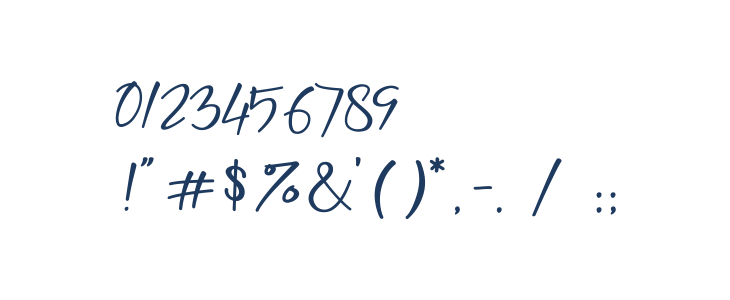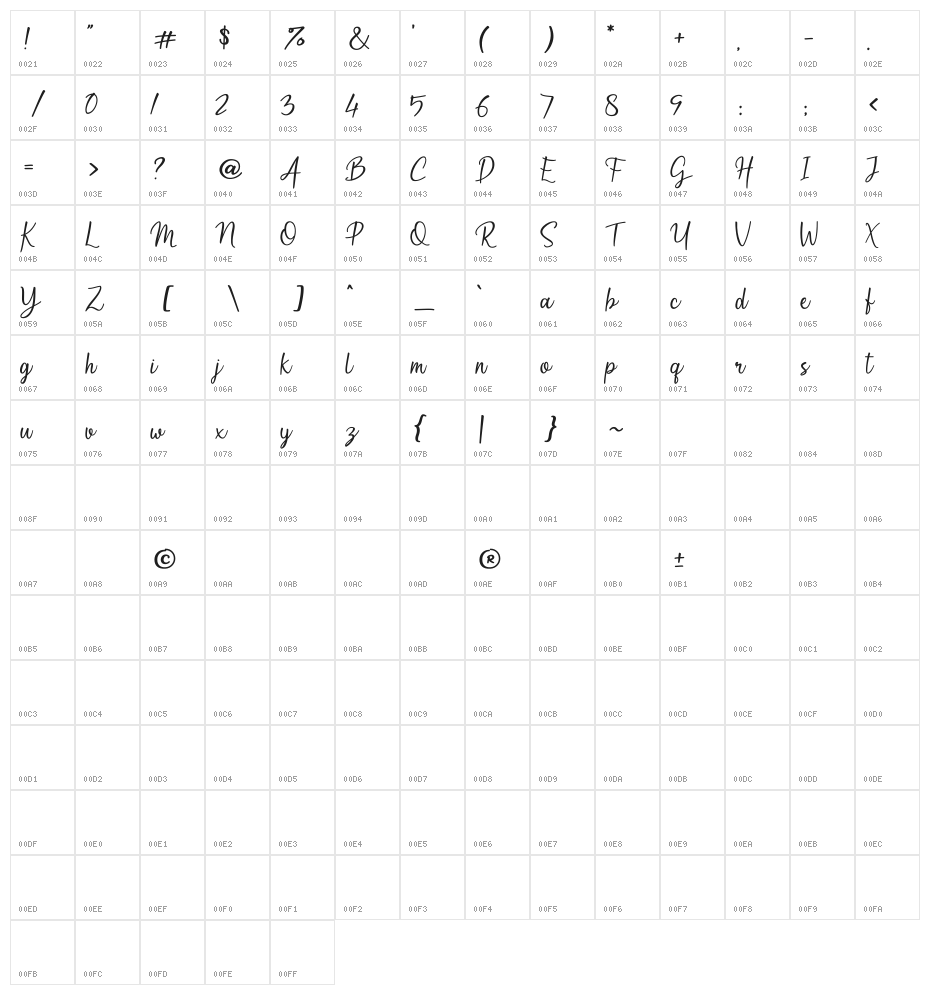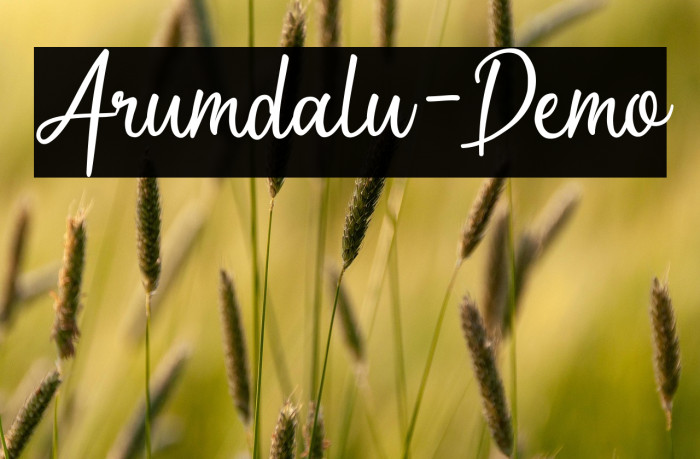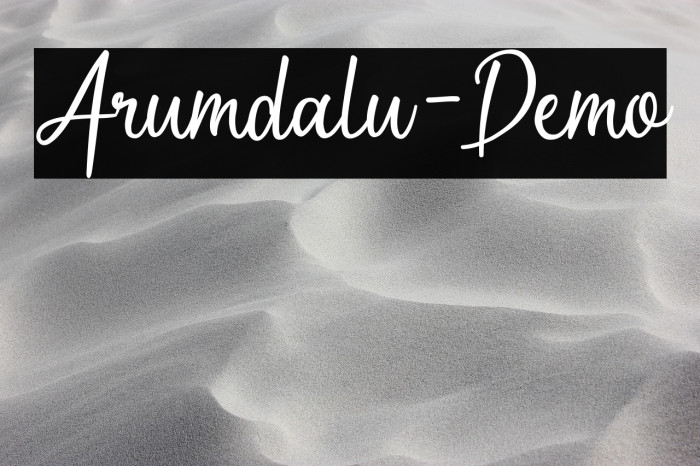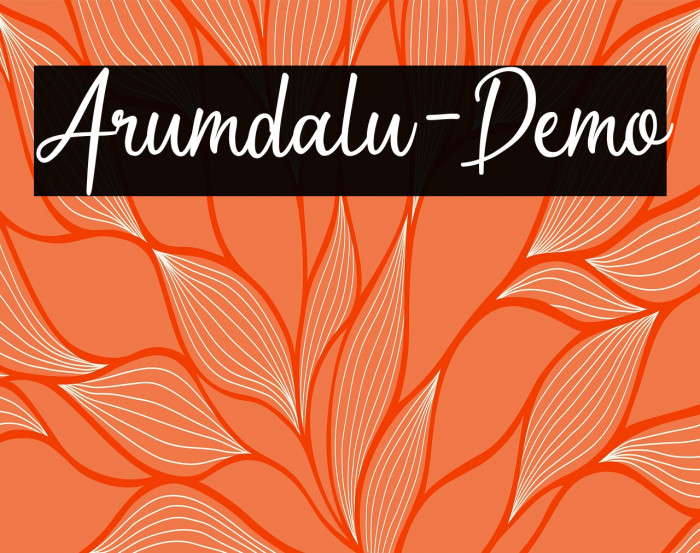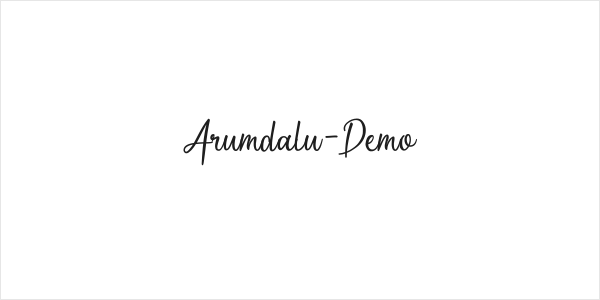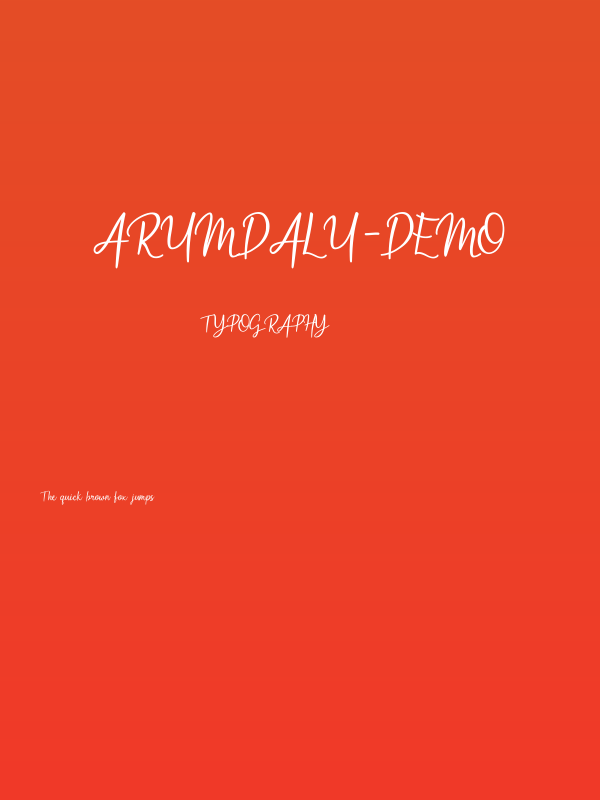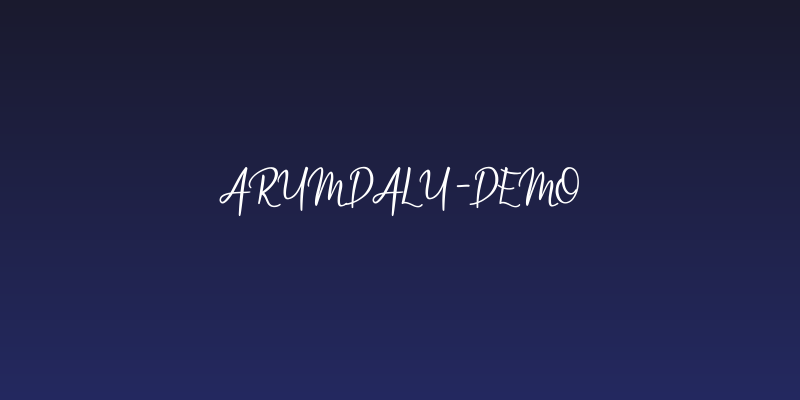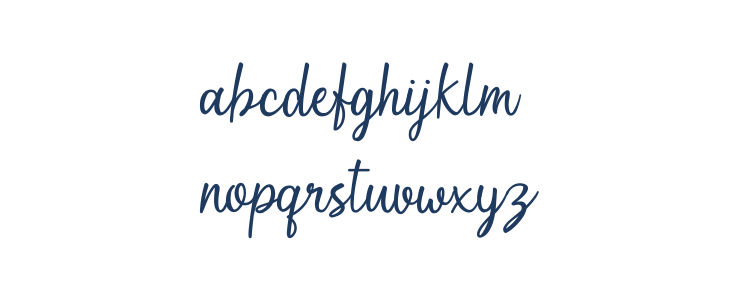
Arumdalu-Demo Font
Arumdalu-Demo Description
This font exudes a lively and dynamic character with its flowing, cursive style. The letters are elegantly connected, giving it a handwritten feel that is both personal and stylish. The uppercase letters are bold and prominent, while the lowercase letters maintain a consistent flow, enhancing readability. The numbers and special characters are crafted with the same fluidity, ensuring a cohesive look across all text elements. The strokes vary in thickness, adding a touch of sophistication and movement to the overall appearance. This font is perfect for projects that require a personal touch, such as invitations, greeting cards, or branding materials that aim to convey elegance and creativity.